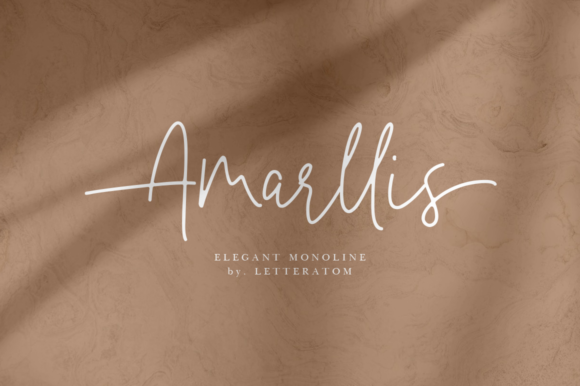
Introduction to Amarllis Font
Amarllis is a delicate and elegant handwritten font.
Its distinct and well balanced letters make this font a masterpiece This font is PUA encoded which means you can access all of the glyphs and swashes with ease.
Key Features of Amarllis Font
Why Choose Amarllis Font?
Amarllis Font offers exceptional quality and versatility, making it a valuable addition to your design toolkit. Whether you’re creating for personal projects or commercial use, Amarllis Font delivers professional results.